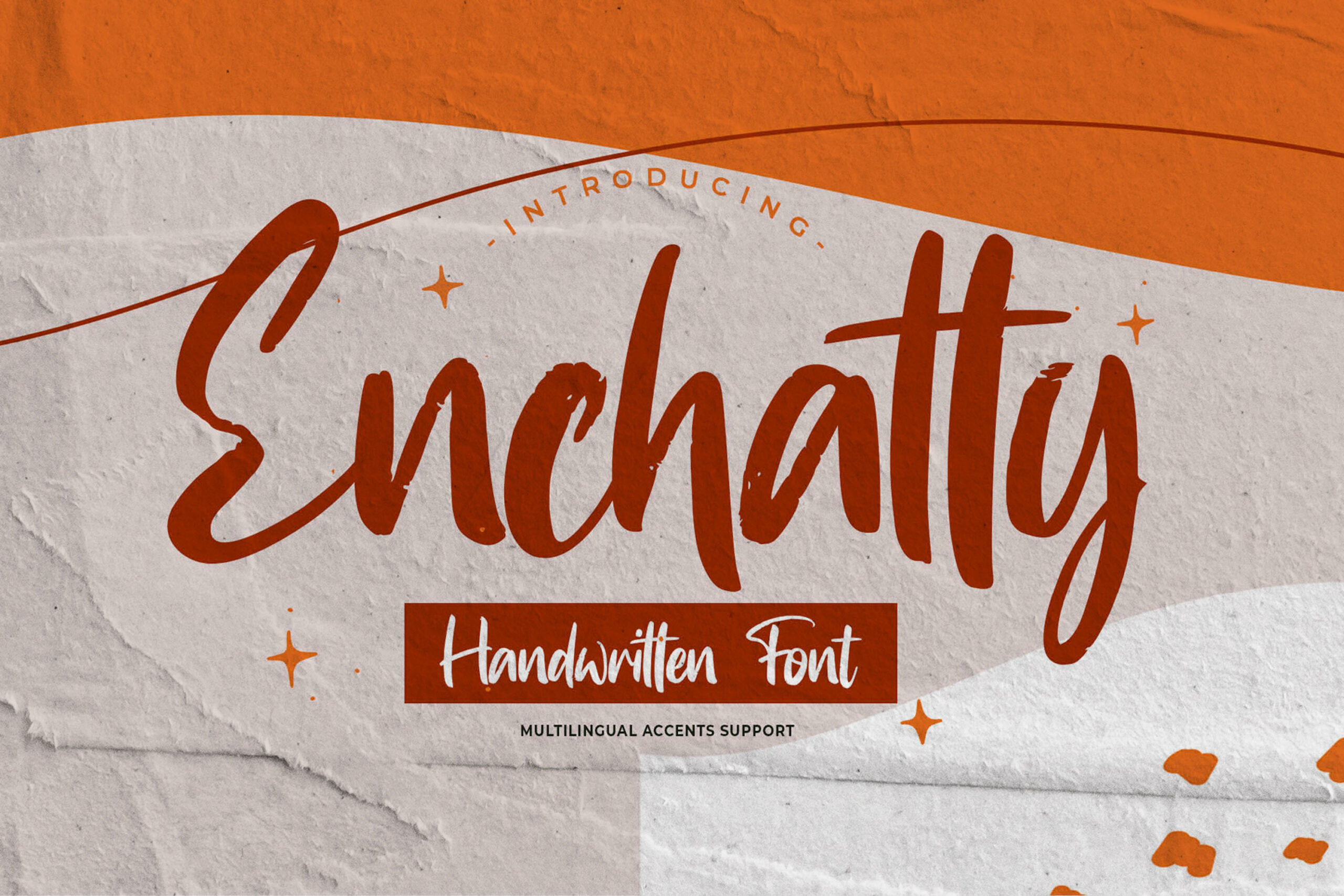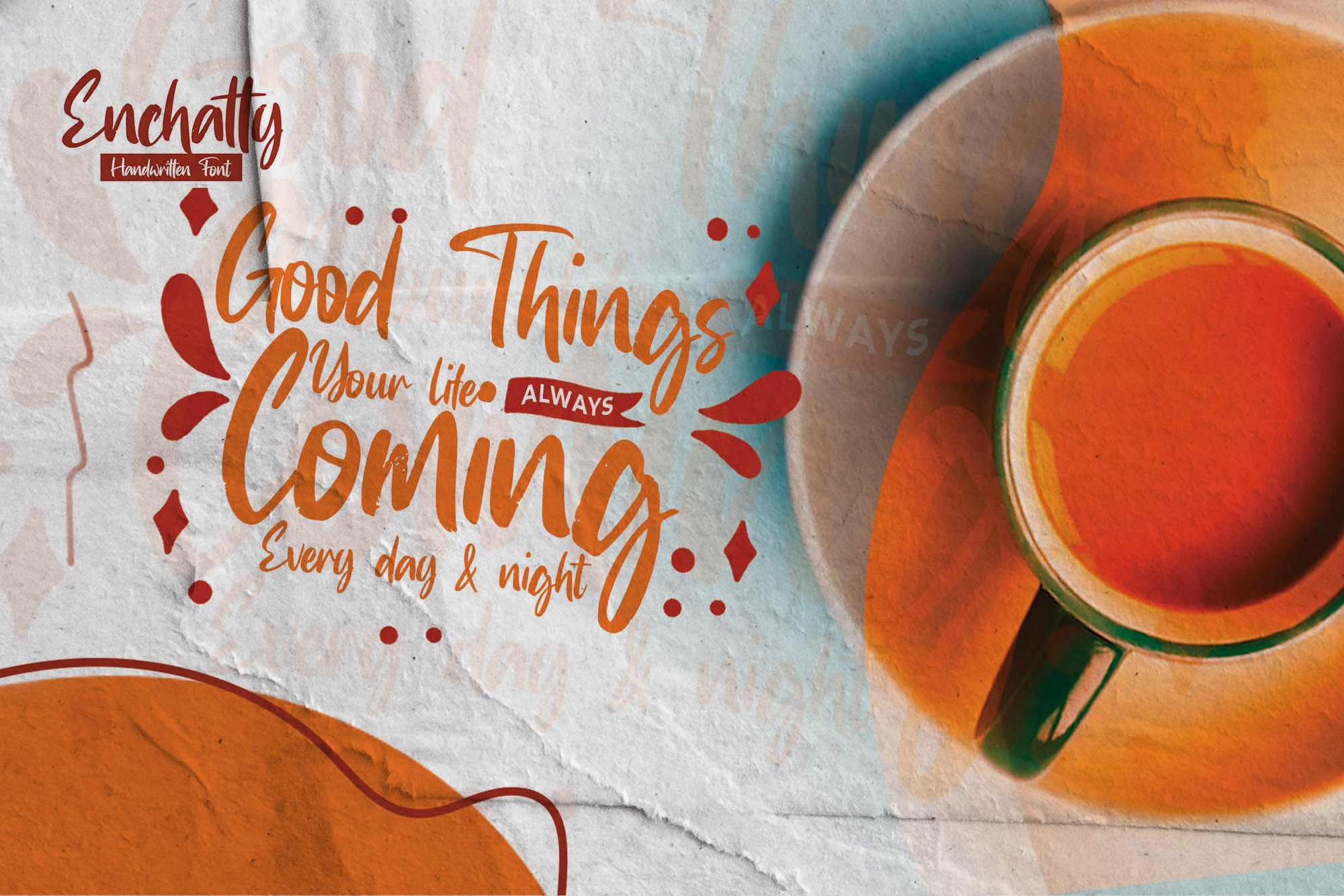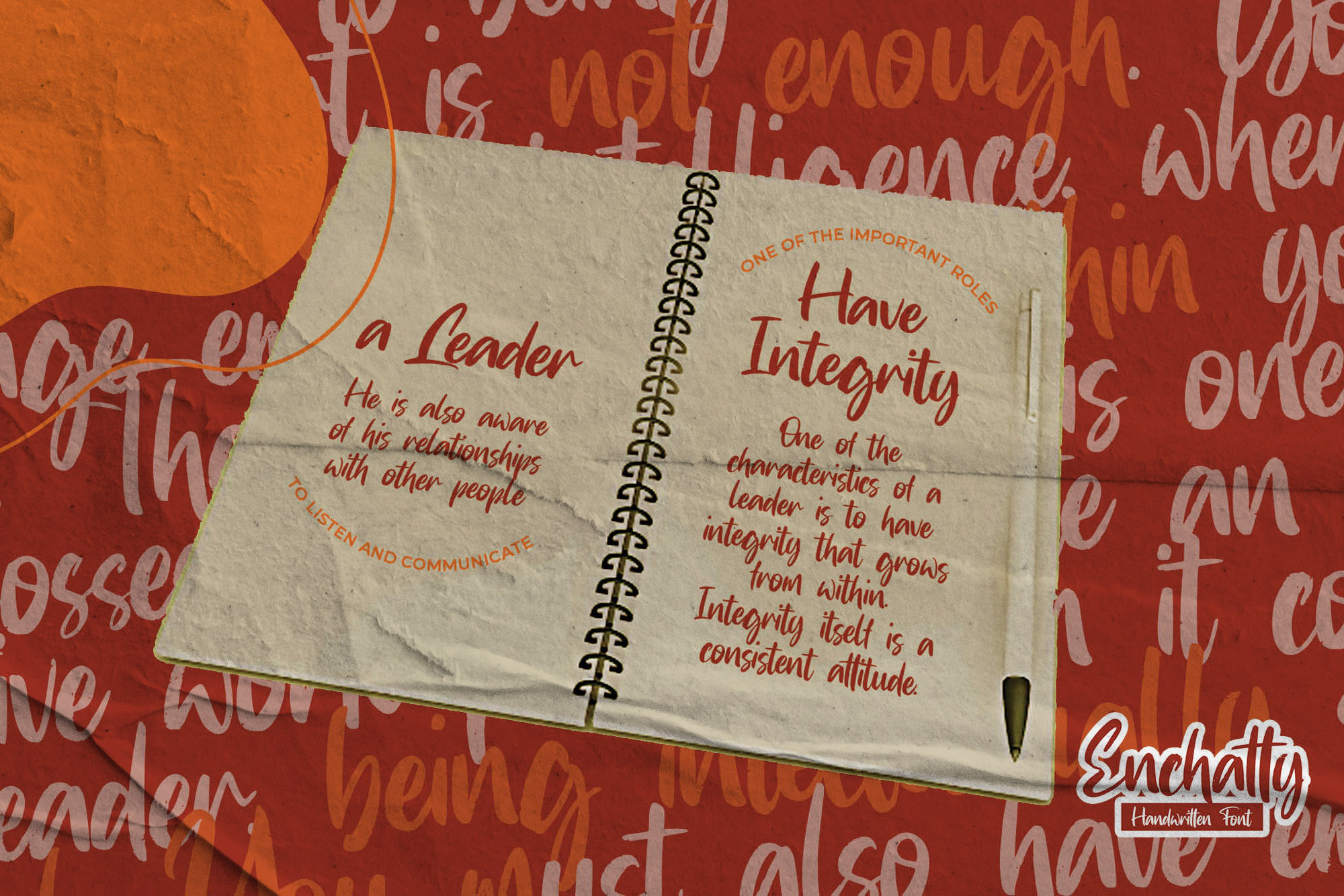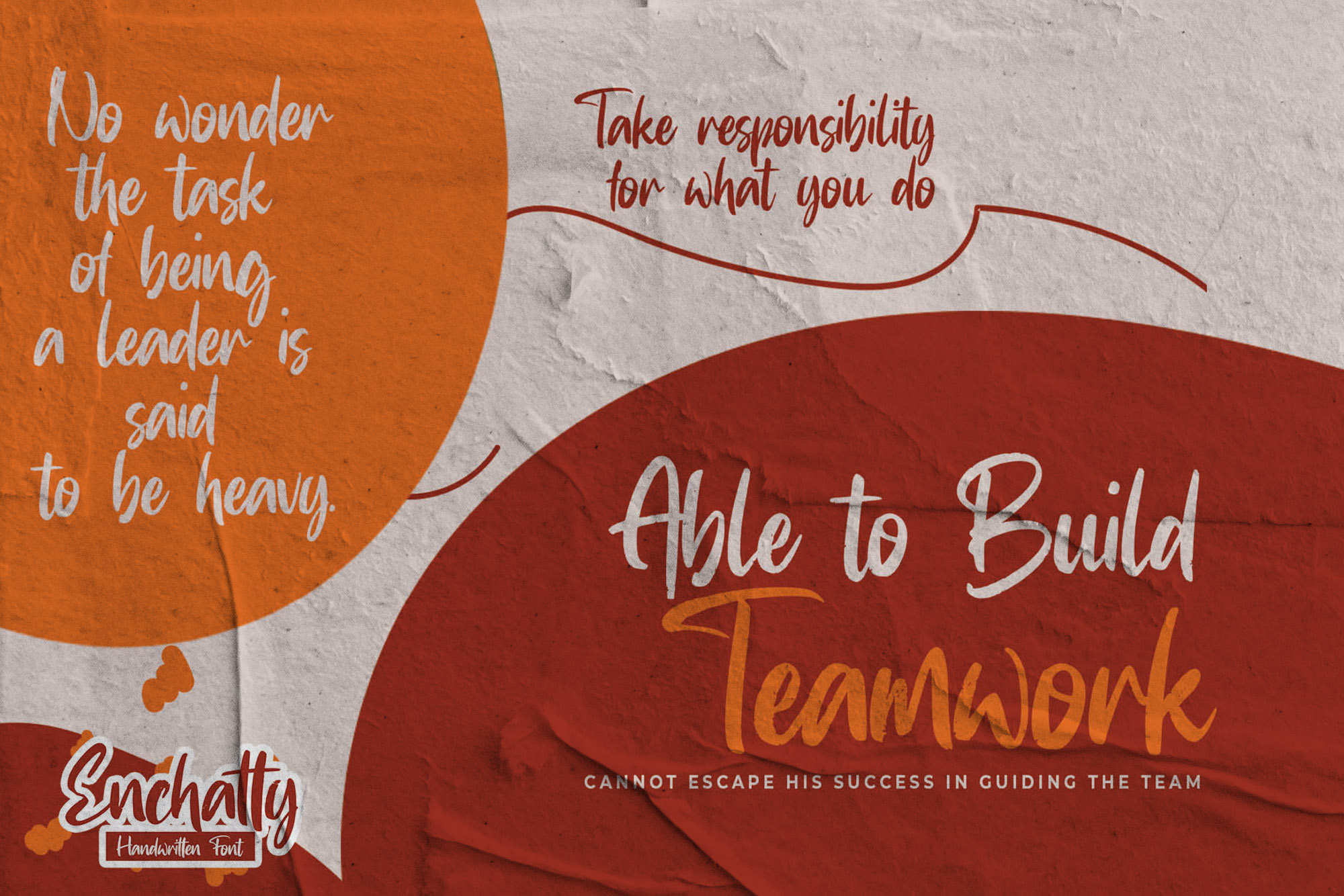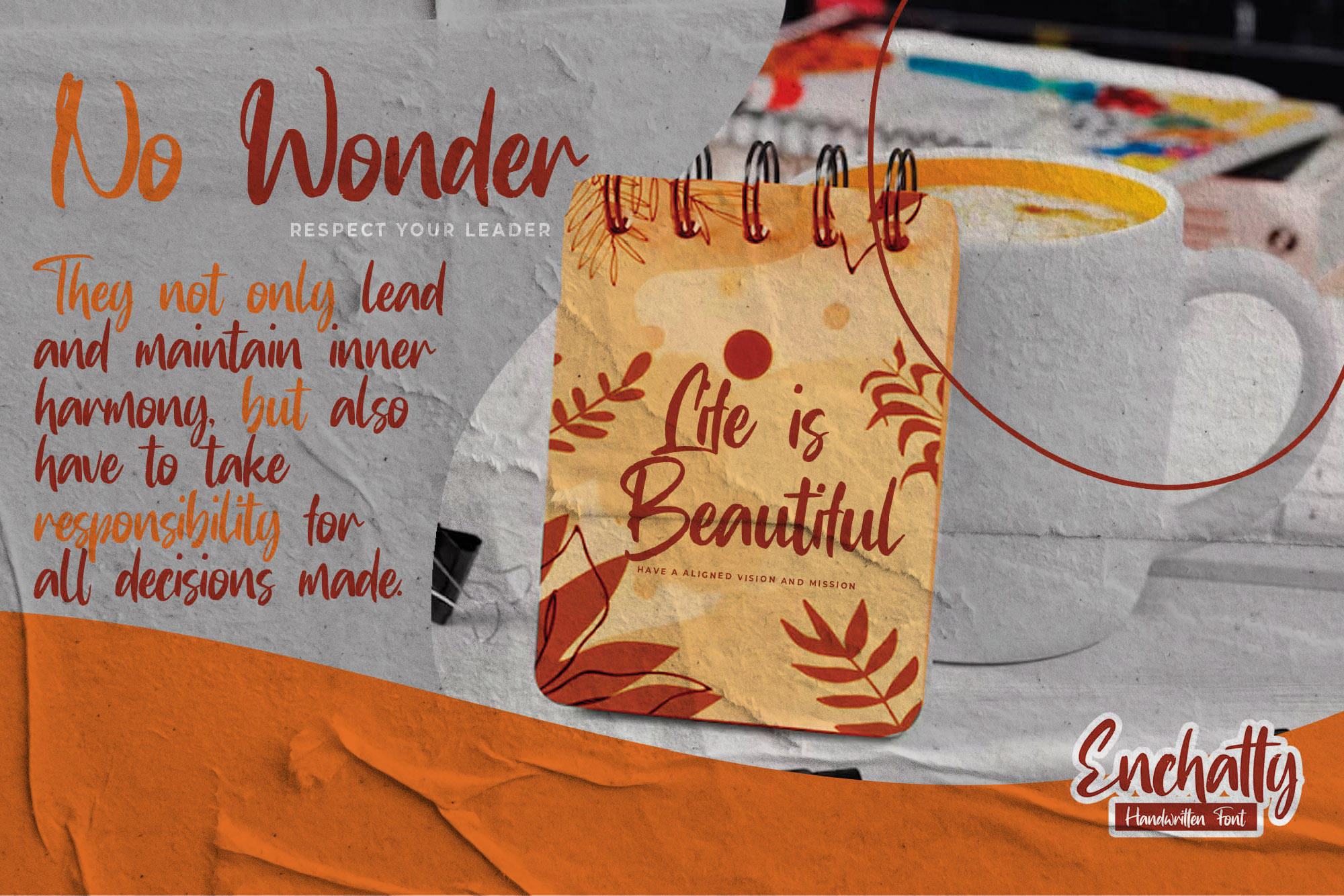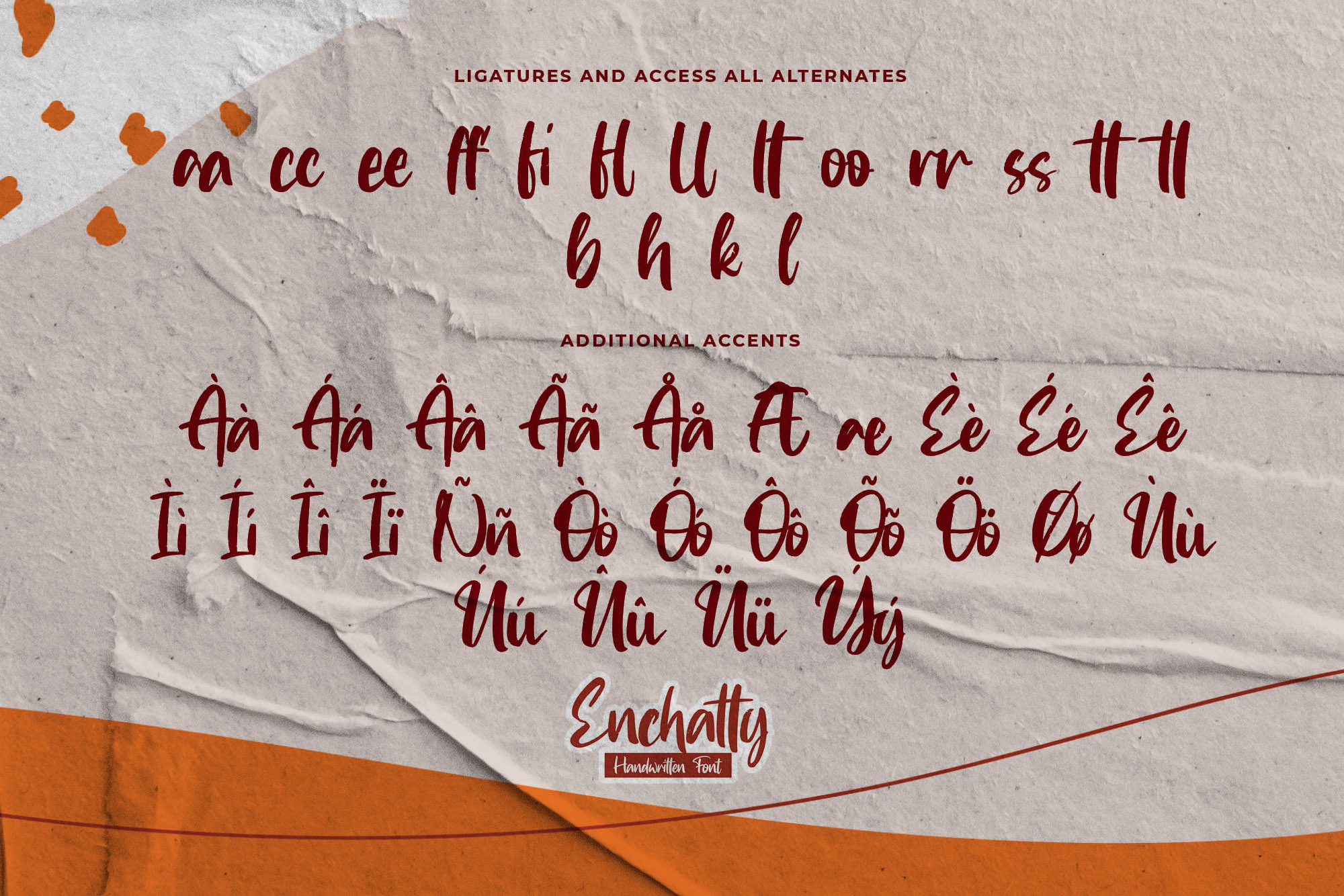
Enchatty – Handwritten Font, modern style and dramatic movement that is written casually and quickly.
The best for labels, poster, project designs look modern, authentic and fun. It’s perfect for labels, quotes, posters, DIY projects, branding, packaging, greeting cards, websites, photography overlays, signs, scrapbooking, tags and so much more! That is why Enchatty has a textured, and unique characteristic more natural look. You can activate Alternates and Ligatures glyphs OpenType panel.